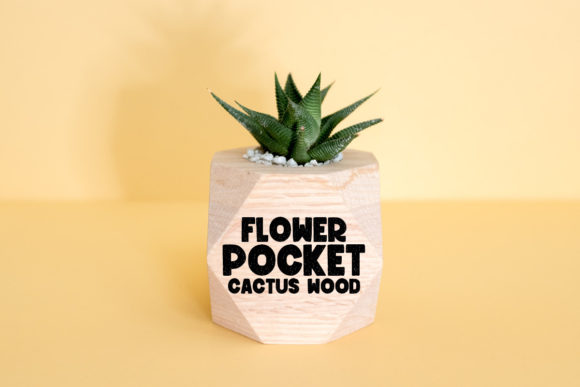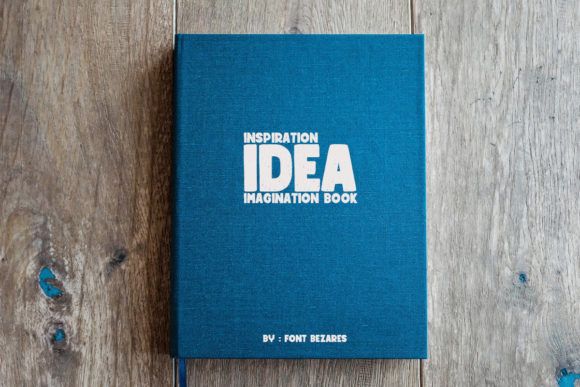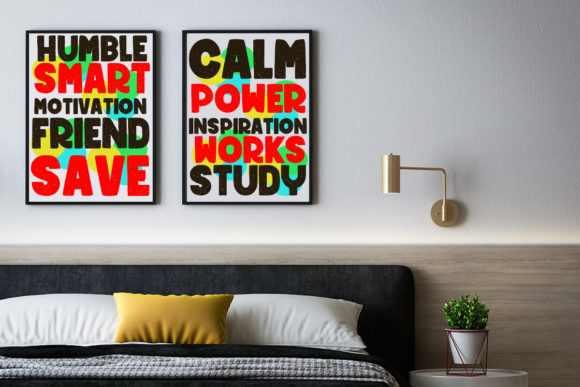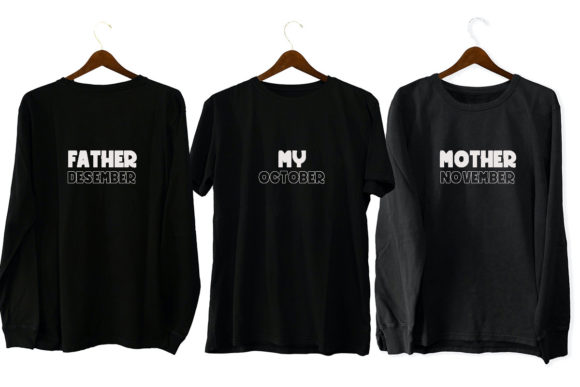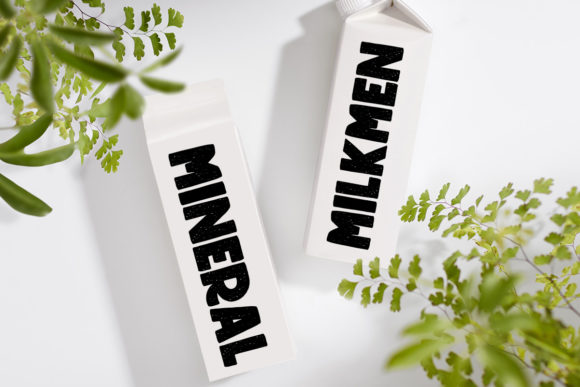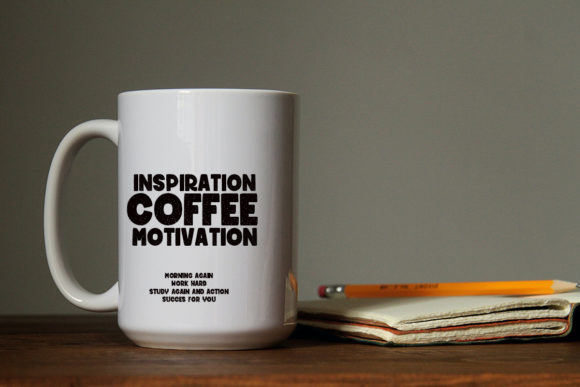
The Ultimate Display Font: A Deep Dive into Bezares
I’ll never forget the time I was working on a project for a client who needed a bold, eye-catching font to make their brand stand out. I scoured the internet, tried countless fonts, but nothing seemed quite right. That was until I stumbled upon Bezares – a cool, bold, and thick lettered display font that instantly caught my attention. In this article, I’ll share my experience with Bezares, its features, and how to make the most of it in your designs.
My Honest Review of Bezares
Bezares has quickly become one of my go-to fonts for various design projects. Here’s what I love about it:
- ✨ Bold and attention-grabbing: Bezares is perfect for making a statement with your designs. Its thick letters demand attention and are sure to leave a lasting impression.
- ✅ Versatile: Whether you’re designing for crafts, digital media, presentations, or greeting cards, Bezares adapts seamlessly to any occasion.
- 🎨 Highly customizable: With its range of OpenType features, glyphs, and stylistic alternates, you can experiment with different styles to match your brand’s personality.
While Bezares is an excellent font, it’s not without its quirks:
- 🤔 Limited use for body text: Due to its bold nature, Bezares is best suited for headlines and titles rather than body text.
The Story Behind Bezares
Bezares was designed with the goal of creating a bold, attention-grabbing font that could be used across various design platforms. Inspired by urban landscapes and modern typography, Bezares’ creator aimed to craft a font that was both stylish and versatile. The result is a font that’s perfect for designers, crafters, and creative hobbyists looking to add a professional touch to their work.
| Font Name | Bezares Font |
| What is Bezares best used for? | Bezares is ideal for headlines, titles, and bold statements in various design projects, including crafts, digital media, presentations, and greeting cards. |
| Can I use Bezares for body text? | While possible, Bezares is not recommended for body text due to its bold nature. It’s best suited for headlines and titles. |